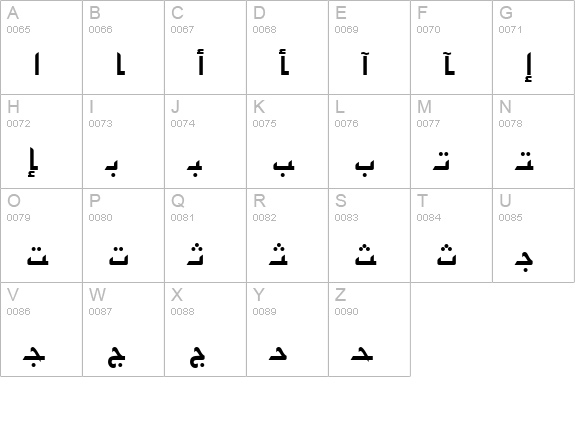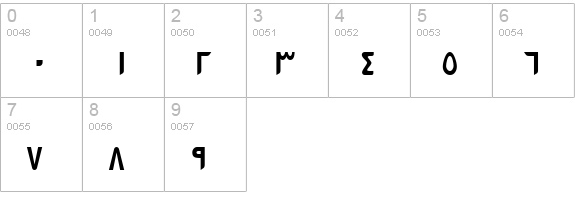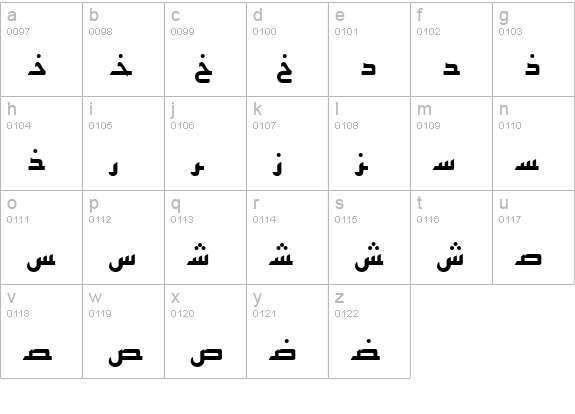
ArabicKufiSSK is a stunning and elegant Arabic font that combines traditional calligraphic elements with a modern twist. This font is perfect for adding a touch of sophistication to your designs, whether for branding, invitations, or any other creative project. With its intricate details and sharp edges, ArabicKufiSSK exudes a sense of luxury and refinement. What's even better is that ArabicKufiSSK is available for free download at FontsMarket.com. This means you can easily access this beautiful font and elevate your designs without any cost. Don't miss out on the opportunity to enhance your projects with the timeless beauty of ArabicKufiSSK. Download it today and let your creativity shine!